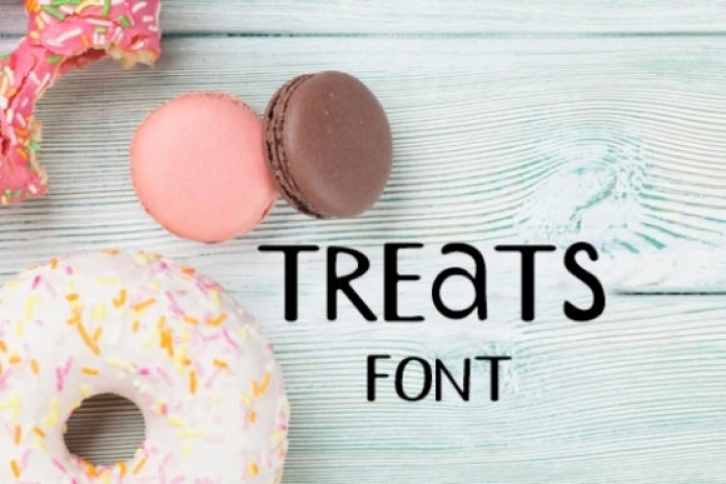
Treats is a great display font. It features characters that make it the perfect font for creating logos, flyers, movie’s posters, social media posts and any project that requires a personalized and amazing look!